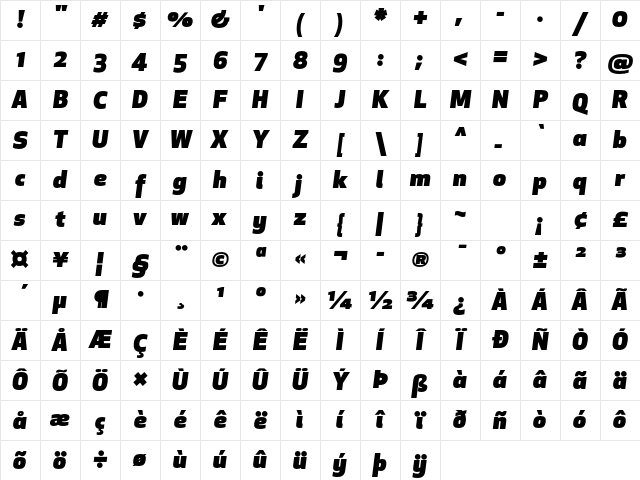
Apex New Ultra Italic
Style: Ultra Italic
Foundry: Village Type & Design LLC (Thirstype)
Designer: chester (orignally designed with Rick Valicenti)
Design Context for Apex New
Apex New is a composed and adaptable typeface that performs quietly and consistently across a wide range of design contexts. The slanted form adds forward momentum and visual energy.
Pro Tip: Use Apex New for emphasis, pull quotes, and subheadings where its slanted energy can add rhythm to the layout.